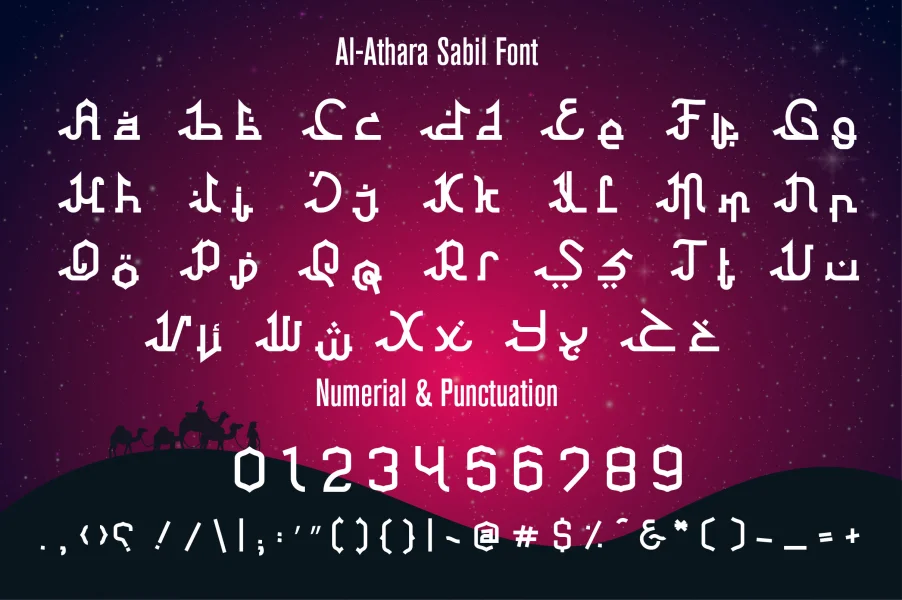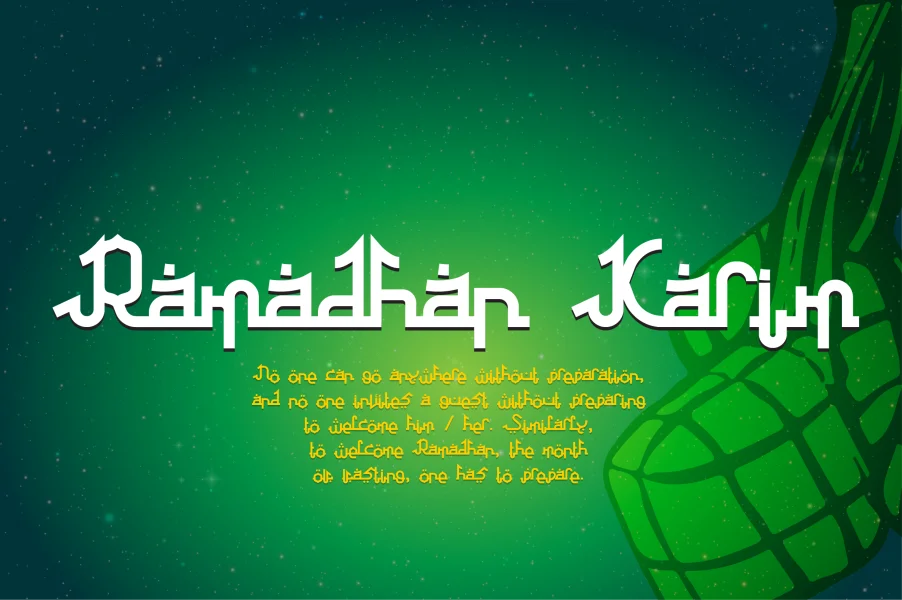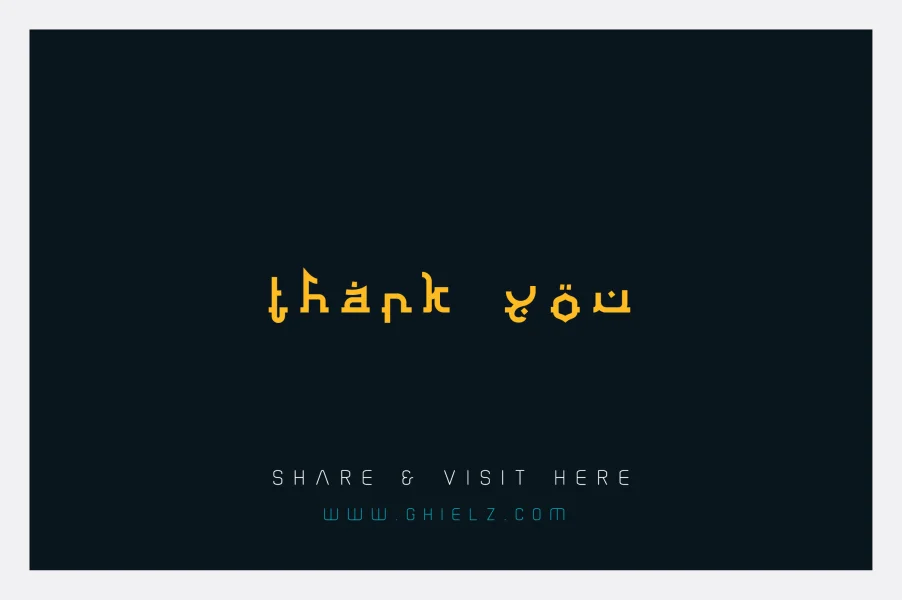
Al athar sabil is an Arabic display font inspired by Arabic script. It features compliance with visual identity designs, art events, packaging and contemporary art projects. also various other print media.